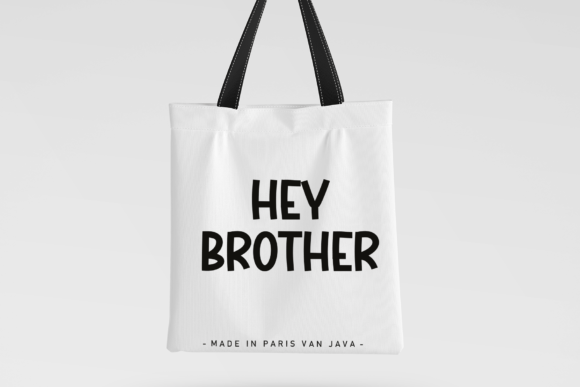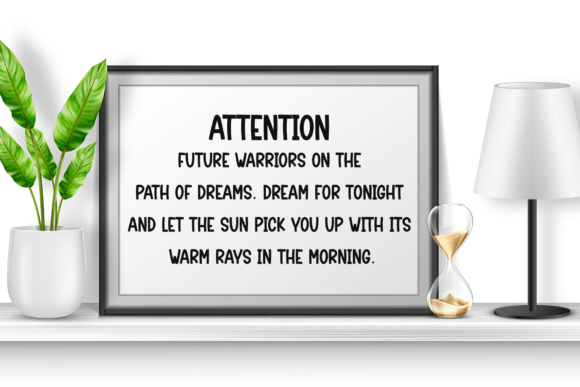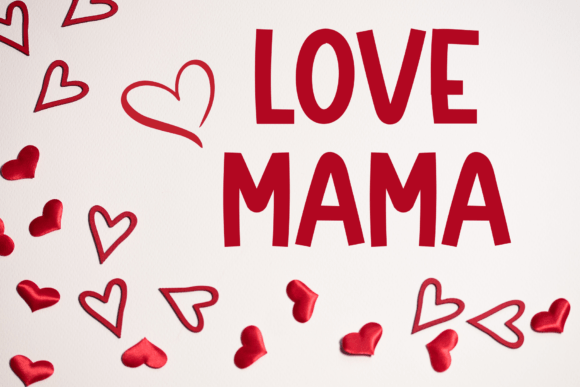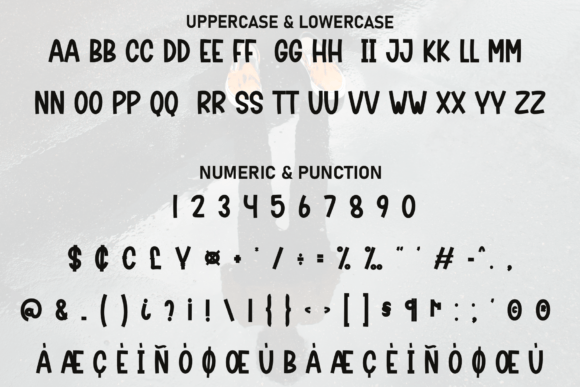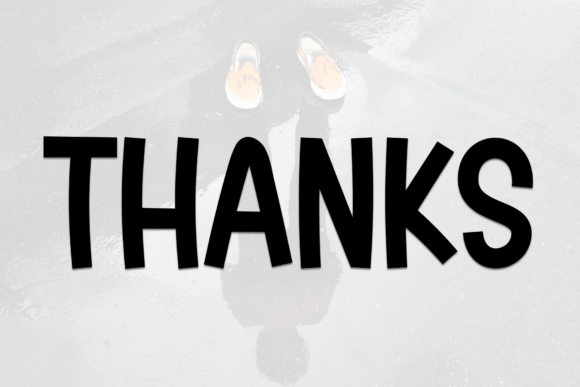
Introduction to Magic Handmade Font
Magic Handmade is a neat and beautiful display font described by an elegant touch, perfect for your favorite projects.
Fall in love with its incredibly distinct and timeless style, and use it to create spectacular designs .
Key Features of Magic Handmade Font
Why Choose Magic Handmade Font?
Magic Handmade Font offers exceptional quality and versatility, making it a valuable addition to your design toolkit. Whether you’re creating for personal projects or commercial use, Magic Handmade Font delivers professional results.